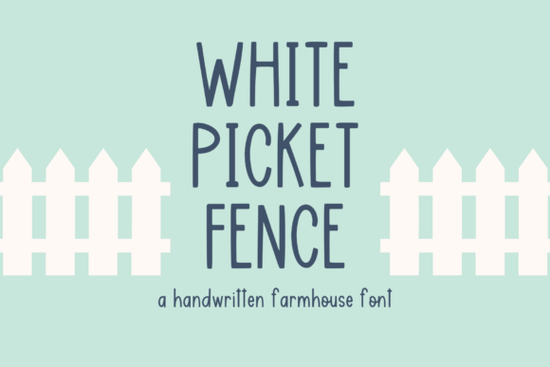
If you need a handwritten typeface that feels warm, casual, and perfectly suited for rustic projects, White Picket Fence Font delivers exactly that. This farmhouse-style script balances playful curves with clean readability, making it a reliable choice for crafters, print-on-demand sellers, and small business owners who want lettering that feels personal without looking messy.
What makes this farmhouse script stand out?
Many handwritten fonts are either too rigid to feel authentic or so loose that they become hard to read at smaller sizes. This typeface avoids both traps. The letterforms carry a gentle bounce and natural variation that mimics actual pen-on-paper writing, yet the spacing stays consistent enough for professional layouts. You will notice subtle swashes and organic terminals that give each word a handcrafted feel, which matches what customers expect when buying rustic home decor or personalized gifts.
The style works particularly well when you want to convey comfort, nostalgia, or handmade quality. It skips heavy embellishments, so it stays versatile across different mediums. Whether you are cutting vinyl for a wooden sign or printing labels for candles, the strokes hold up cleanly.
Which projects work best with this style?
Because the font leans into a relaxed farmhouse aesthetic, it naturally fits projects that benefit from a cozy vibe. Here are the most common use cases where it performs reliably:
- Rustic signage: Wood cuts, laser-engraved plaques, and vinyl wall decals read clearly while keeping that handmade charm.
- Stationery and cards: Wedding invites, birthday greetings, and thank-you notes gain a personal touch without requiring custom calligraphy.
- Print-on-demand merchandise: Tote bags, mugs, and apparel designs targeting home decor enthusiasts convert well with this lettering.
- Digital planning: The clean baseline and legible lowercase make it suitable for Goodnotes headers, digital stickers, and Procreate practice.
If you sell online or run a craft business, using a recognizable script across your listings helps build a cohesive brand identity.
What should I pair it with for balanced layouts?
Is this font worth adding to your collection?